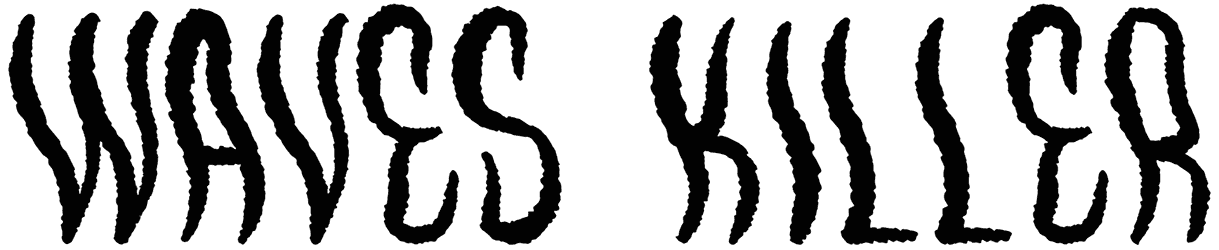
Waves Killer Font
Waves Killer is a wavy font that can be an ideal choice for your Halloween designs. This wavy font has curved ascents that help you completely recreate your spooky design.
Due to its simple appearance, this Halloween font can easily be combined with your creative ideas and create a different design on greeting cards, advertisements, and posters. So don’t consider the lack of lowercase letters and numbers a problem, and start designing with this exciting font.